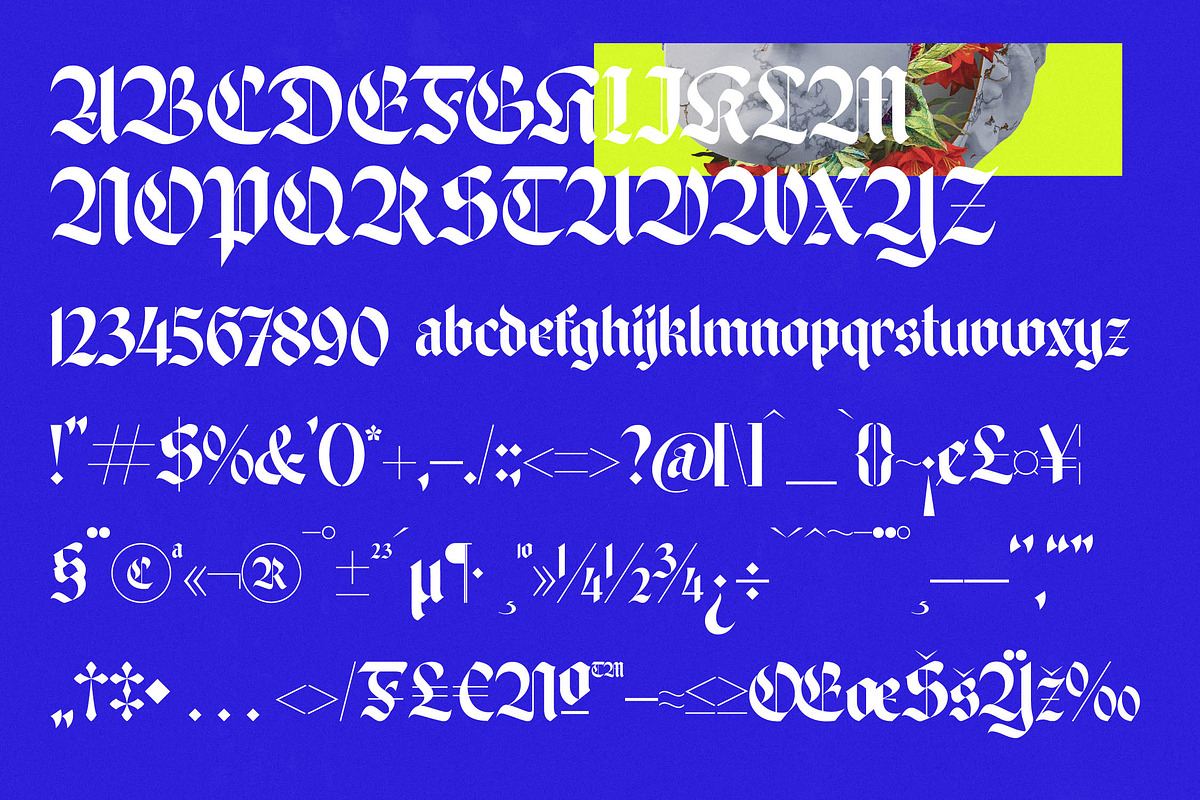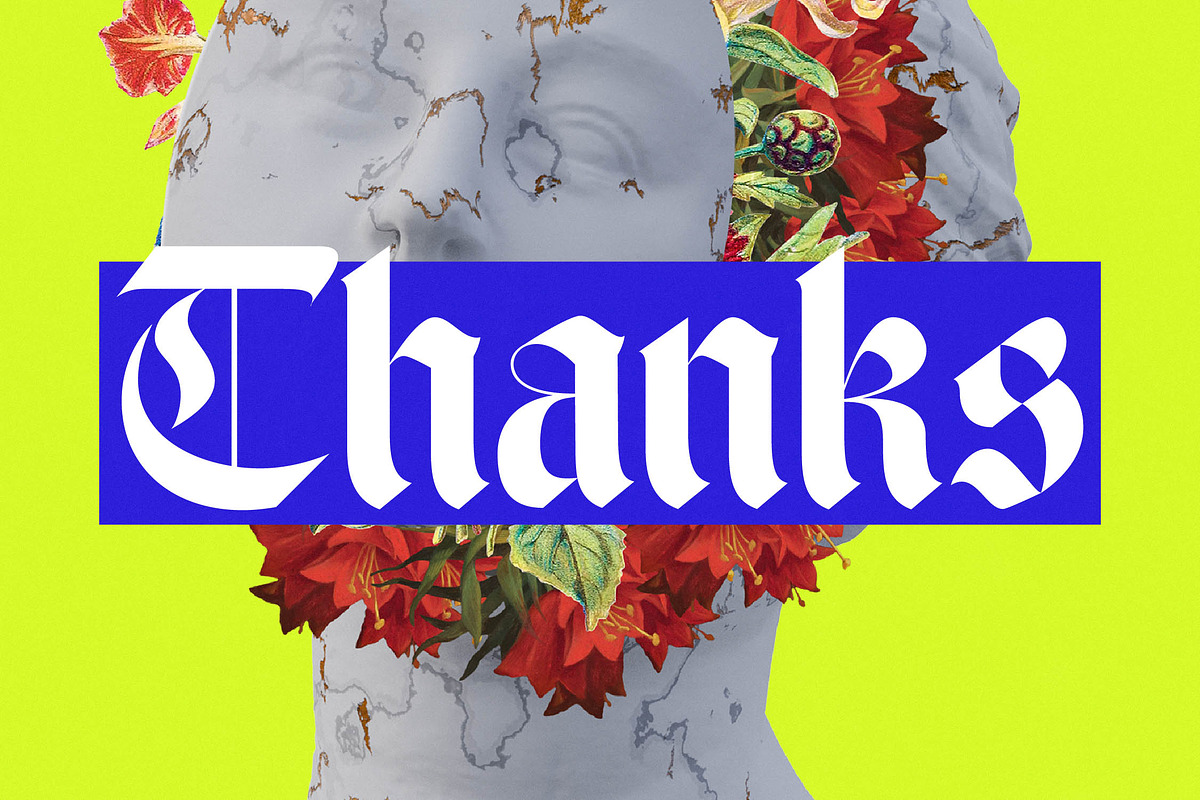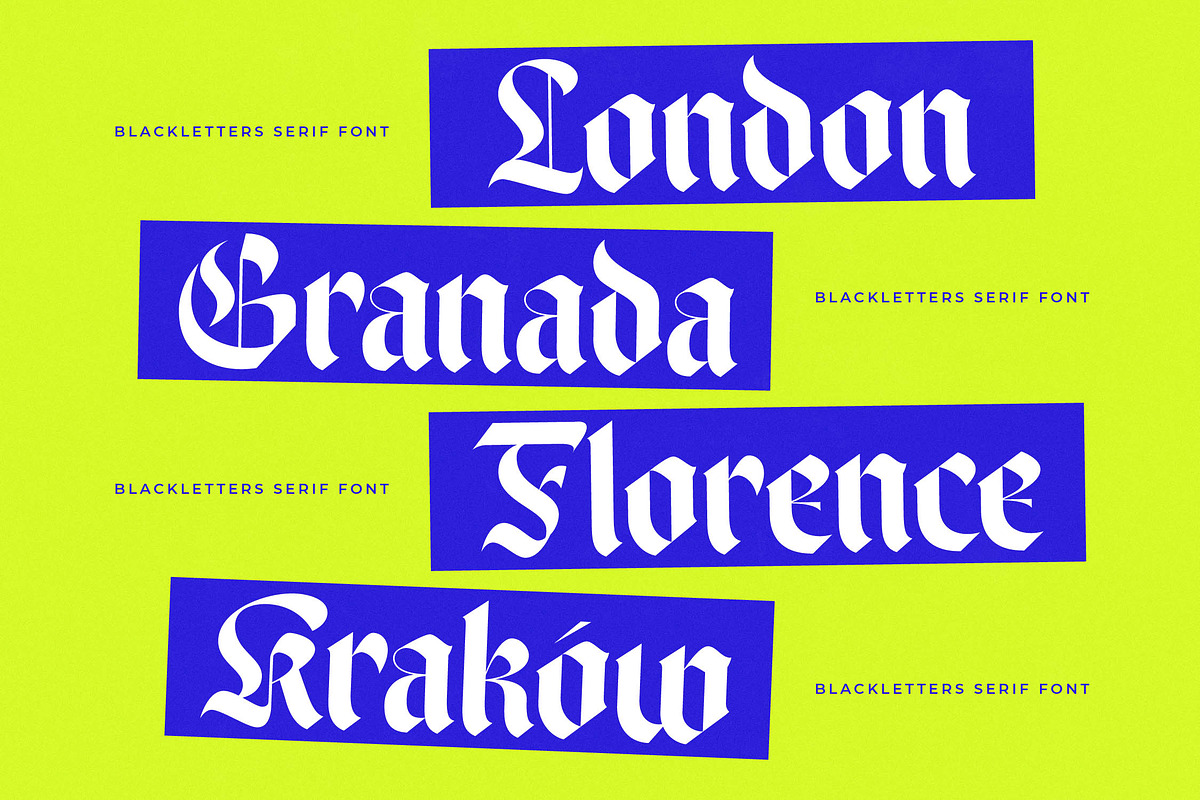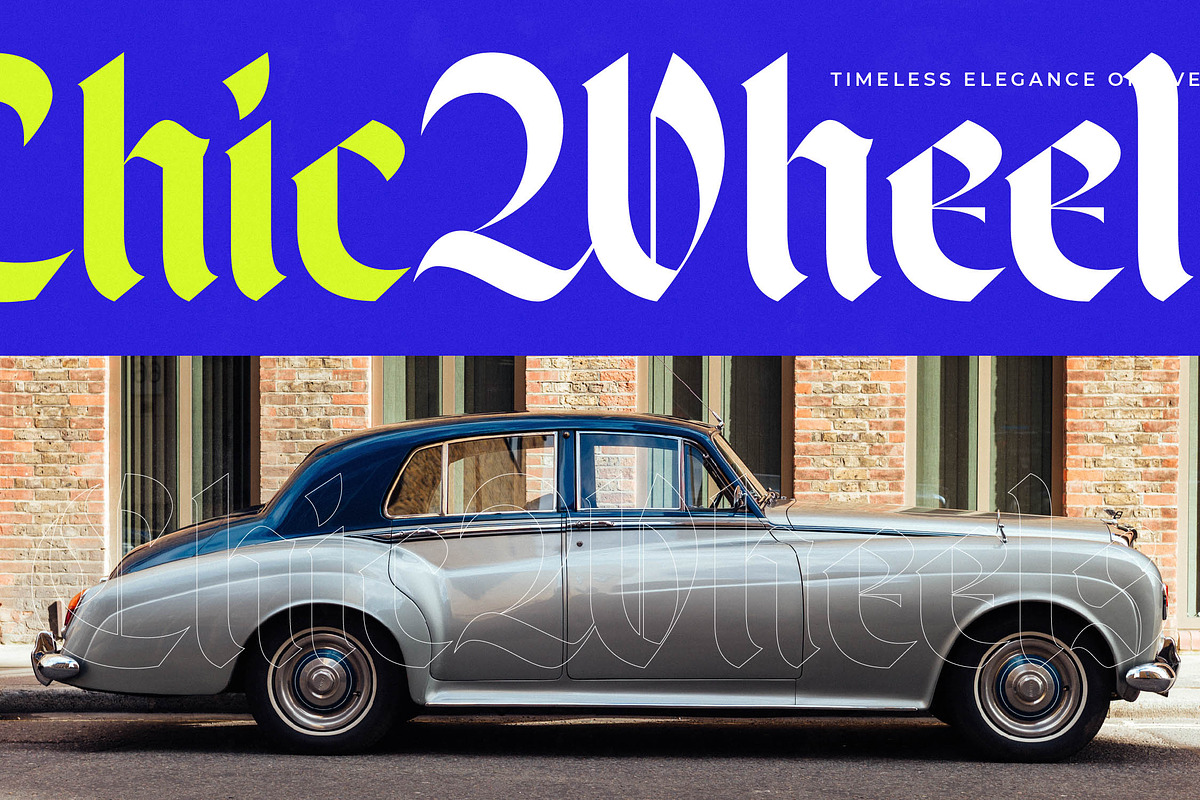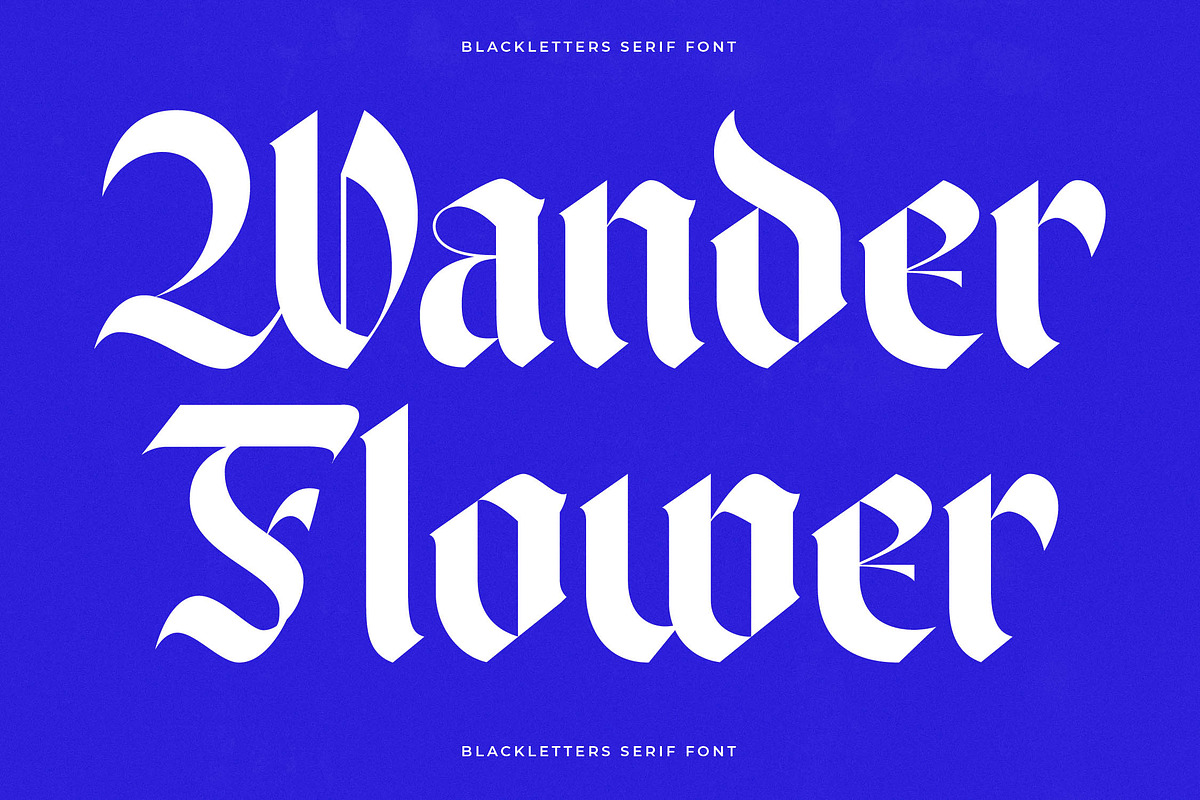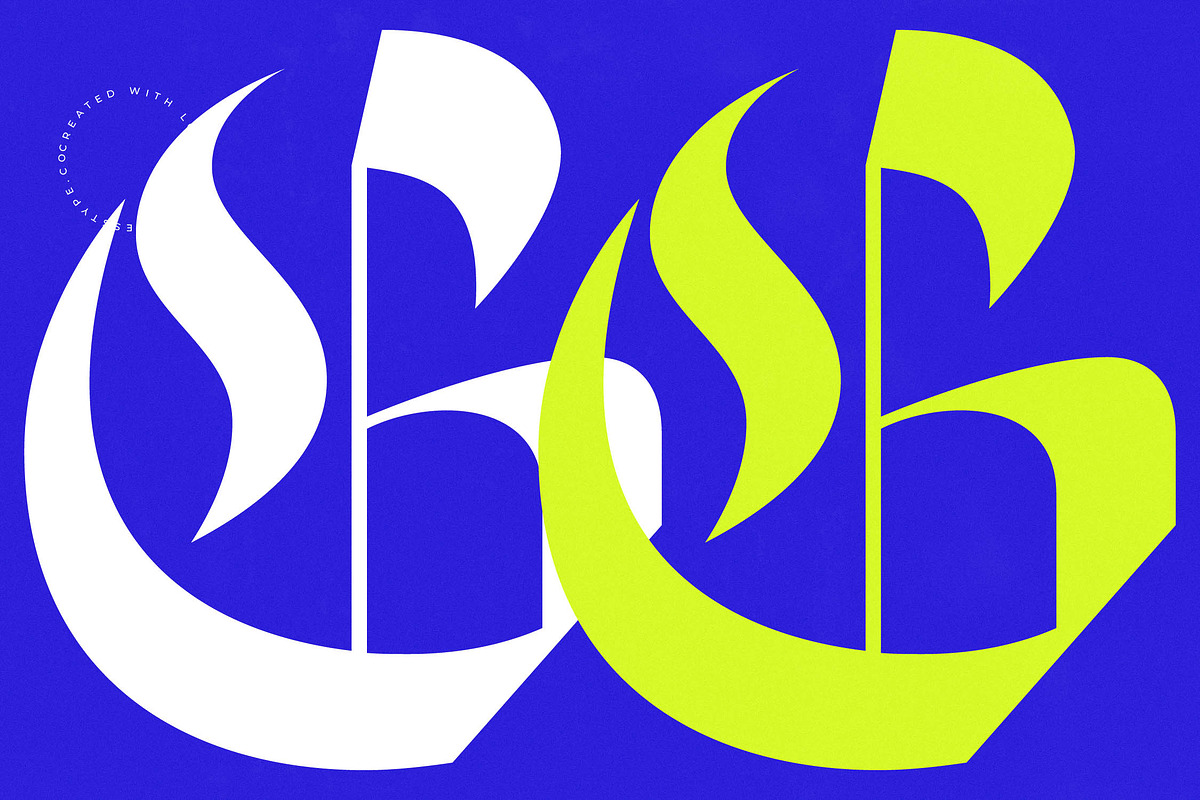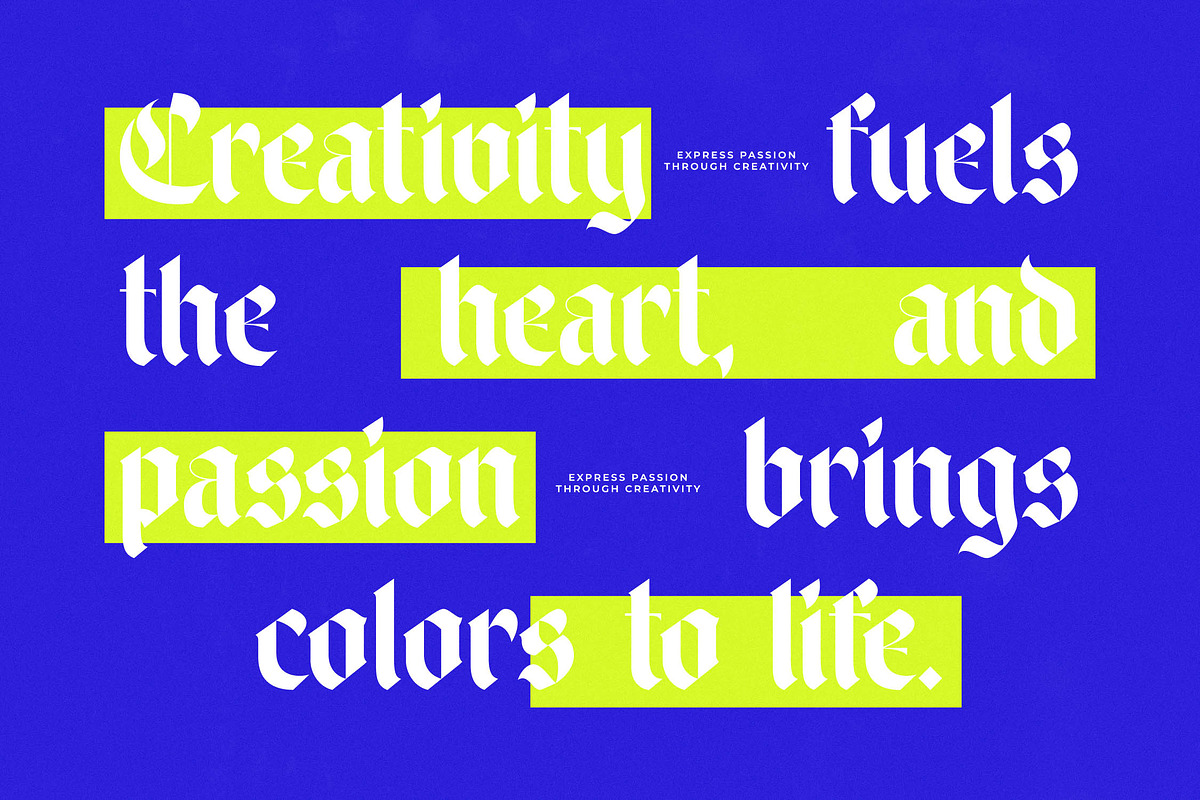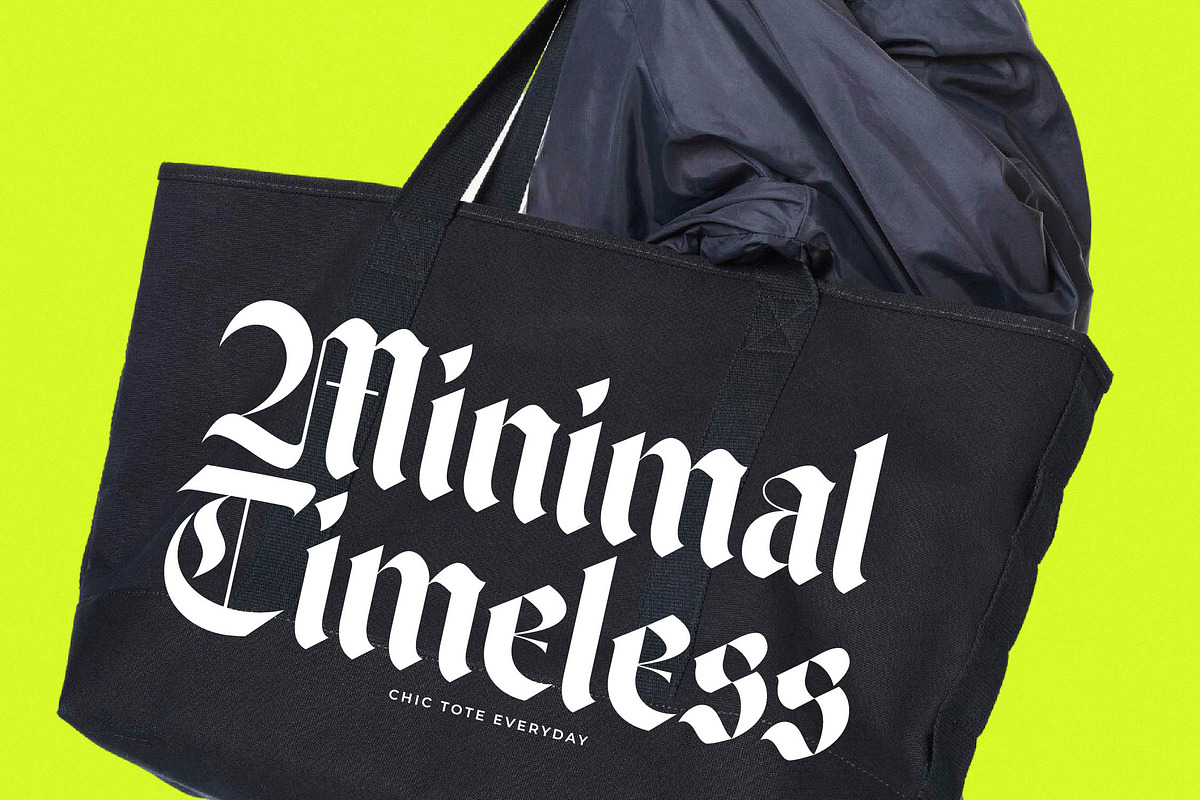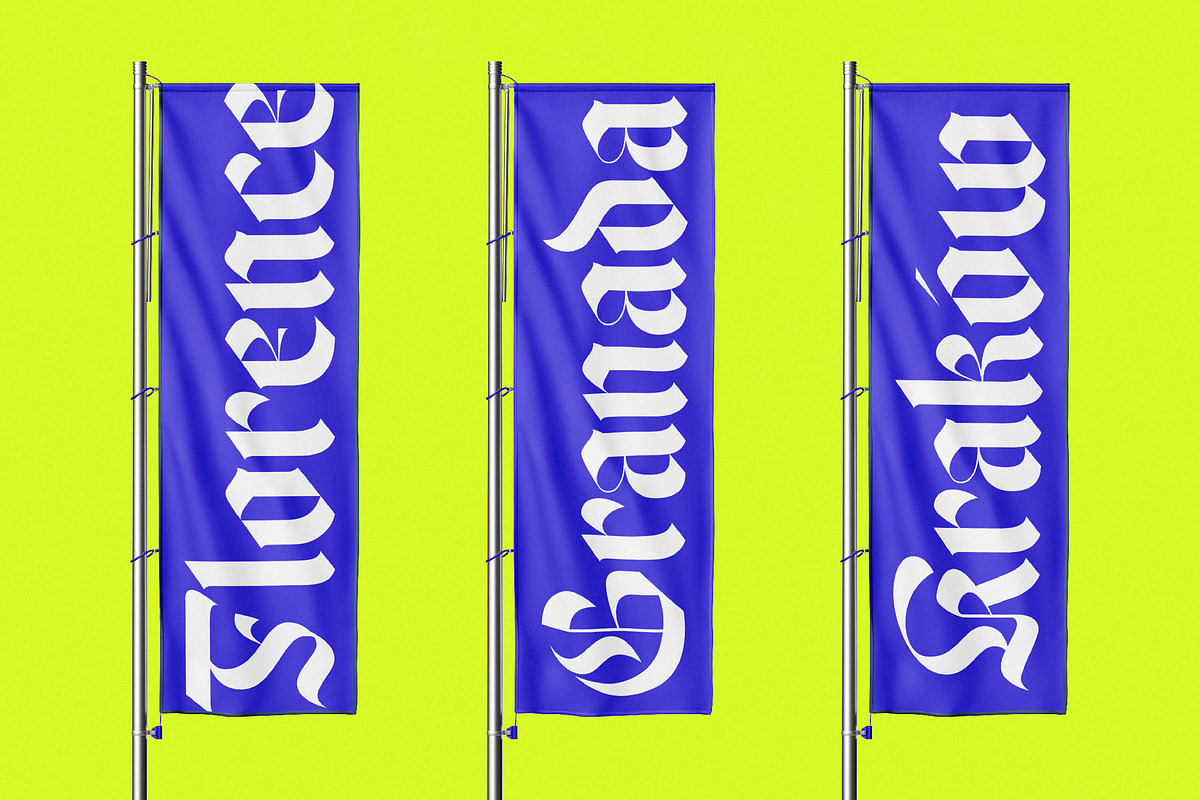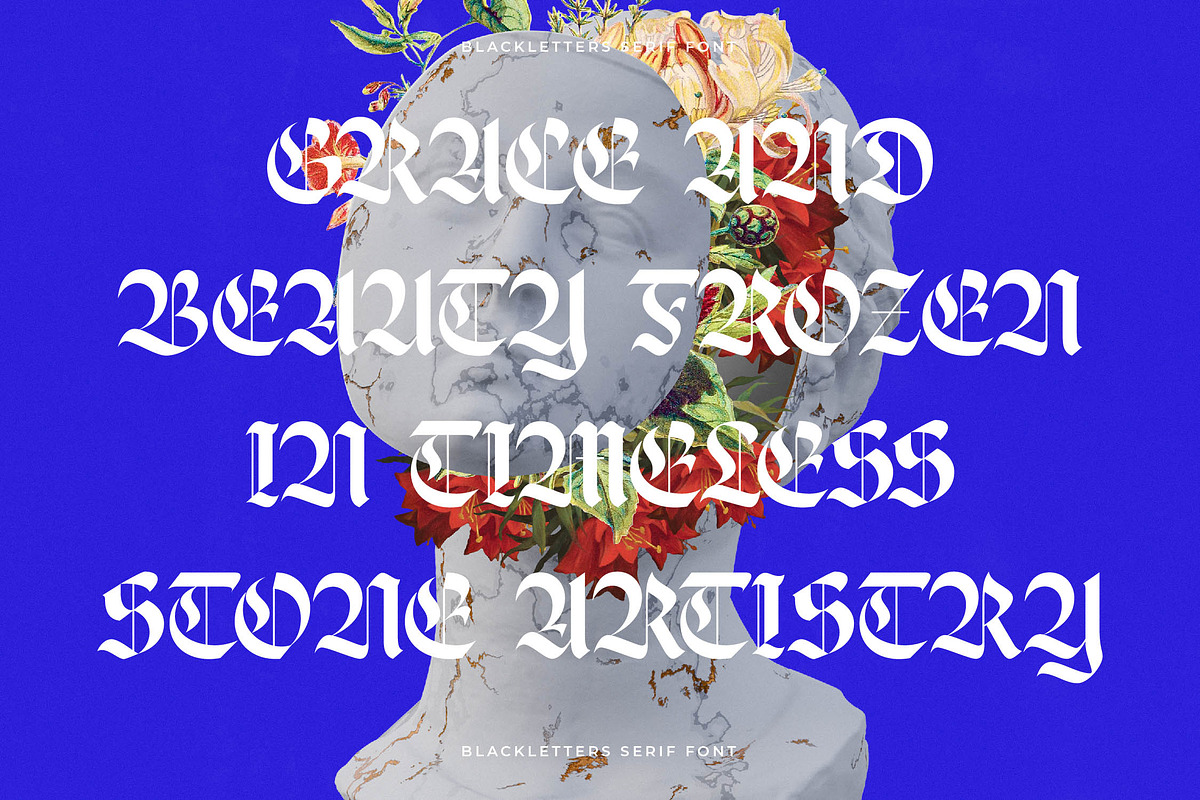
Wilfred Knights Modern Blackletter
Wilfred Knights stands as a bold testament to the fusion of historical power and contemporary rebellion. It is a typeface designed to dominate the visual landscape with its razor-sharp edges and sophisticated, heavy-weighted strokes.
The inspiration stems from the juxtaposition of Renaissance art and urban neon aesthetics, creating a visual language that feels both timeless and aggressively modern. It evokes the feeling of a secret society meeting a high-fashion runway, blending grit with absolute grace.
As a modern serif display, this typeface delivers an undeniable branding impact through its high-contrast serif architecture. It functions as a premium luxury typography tool, serving as a versatile editorial font that bridges the gap between classic calligraphy and digital sharpness.
In today's competitive market, the modern serif trend demands more than just legibility; it requires personality, which is why character-driven typography like this is essential. It stands out among other editorial display fonts by offering a subversive take on traditional serif structures.
This versatile tool is perfect for high-concept logo design and comprehensive branding identity systems that need a sharp edge. It excels in fashion magazines, premium packaging, alternative wedding stationery, and any editorial project requiring a touch of dark elegance.
The package is technically robust, featuring a suite of 10 handcrafted ligatures and 44 expressive alternates to expand your creative range. With full multilingual capabilities, ornamental swashes, and international characters, it provides a seamless experience for designers working on a global scale.